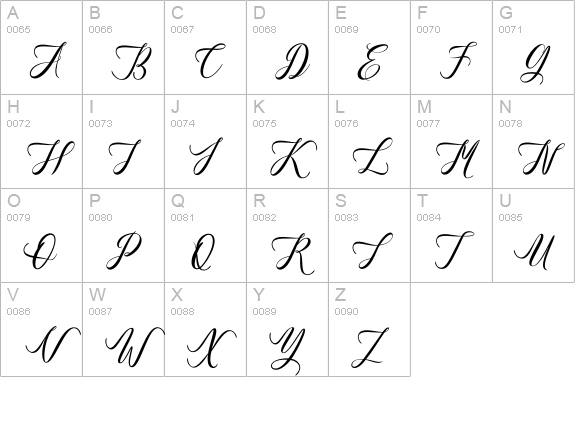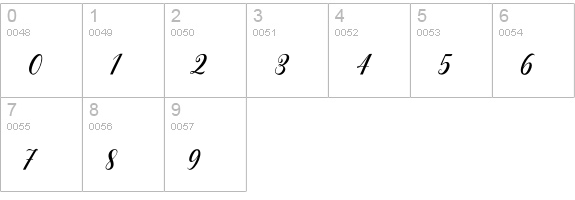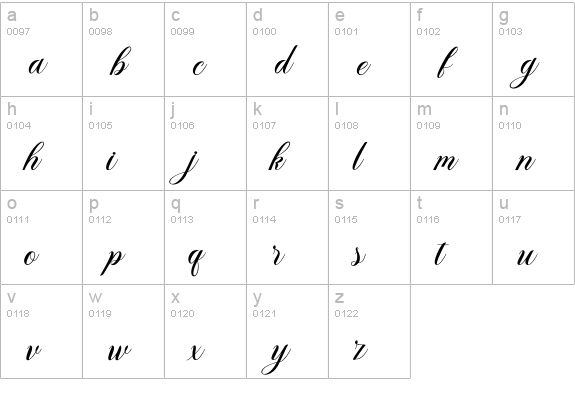
The Hardcover is a free for personal use font in the Script category, designed by jackgridden. It has been downloaded 190 times and is available for Windows, Mac and Linux.
The Hardcover font is a bold and distinctive typeface that exudes strength and elegance. Its clean lines and modern aesthetic make it perfect for a wide range of design projects, from branding to editorial design. The Hardcover font features a unique blend of sharp angles and smooth curves, giving it a sophisticated and contemporary look.